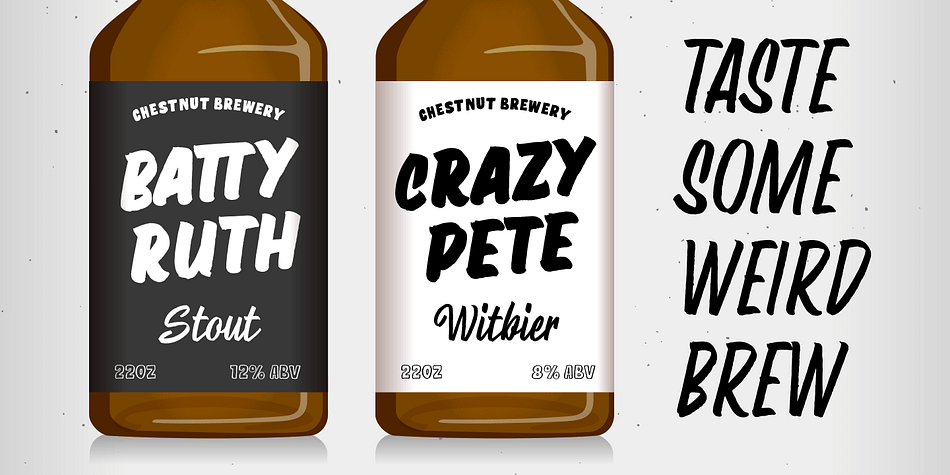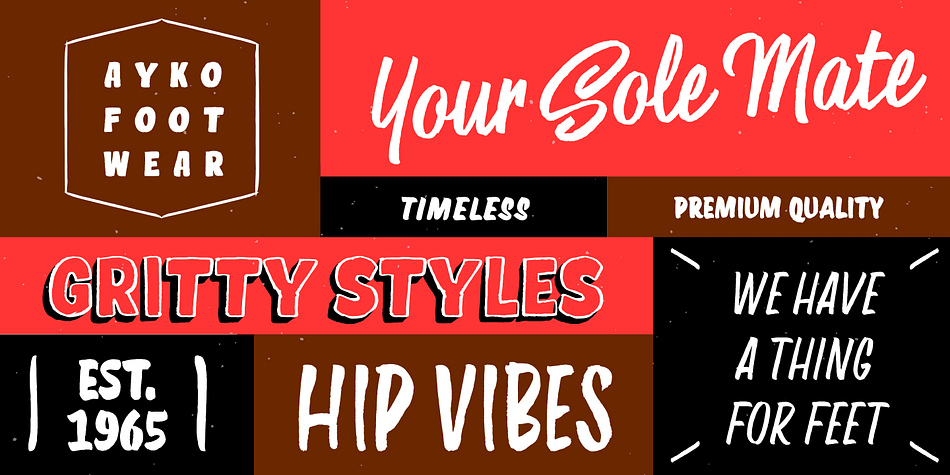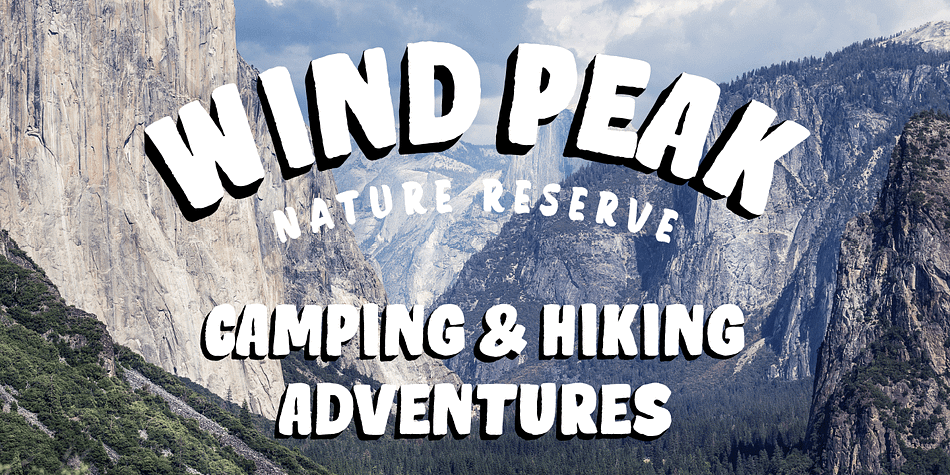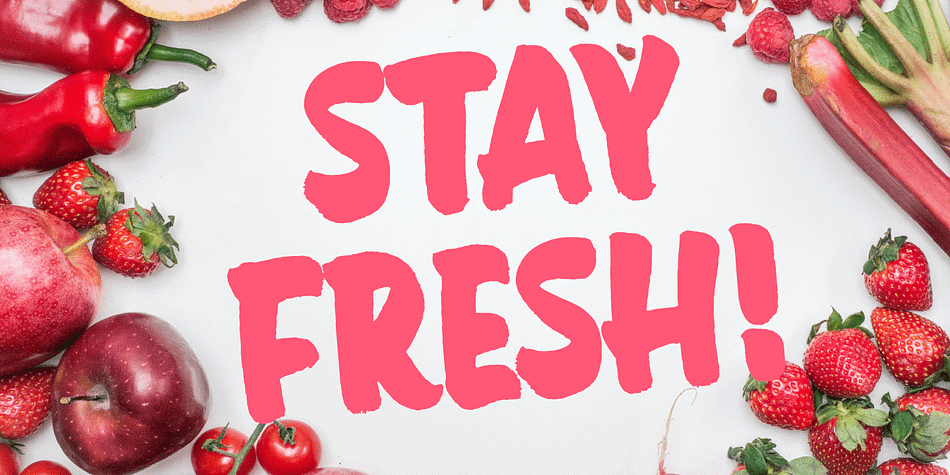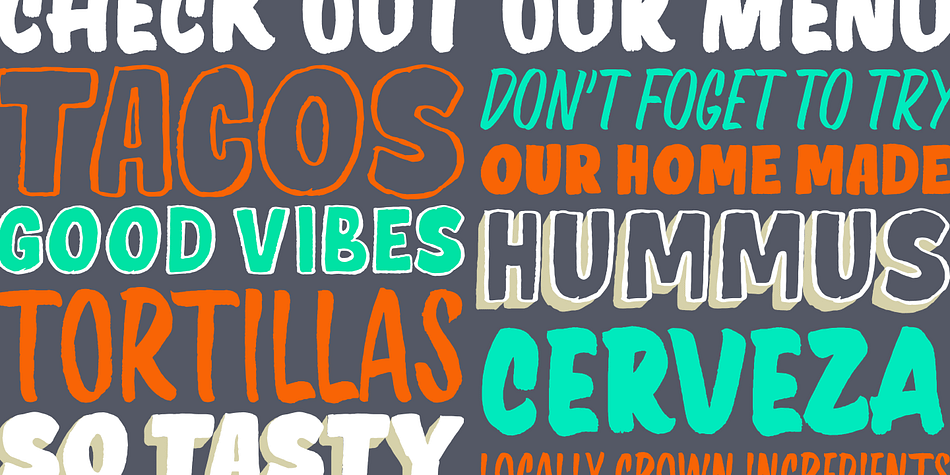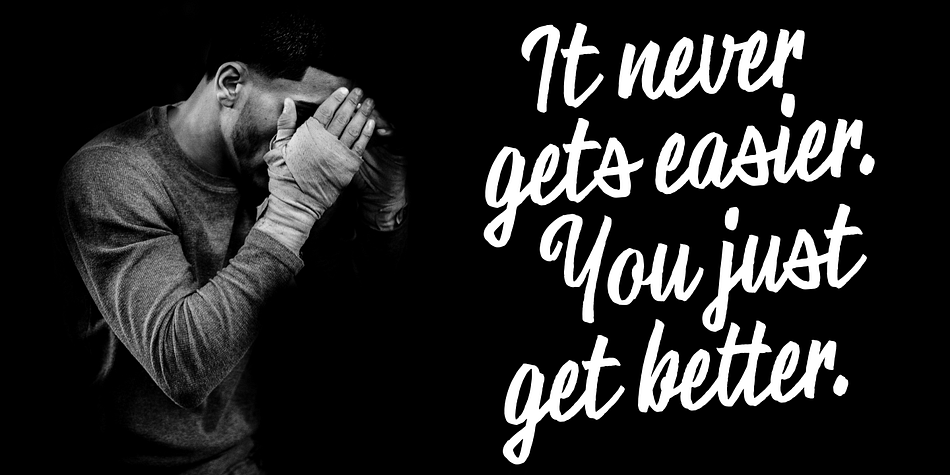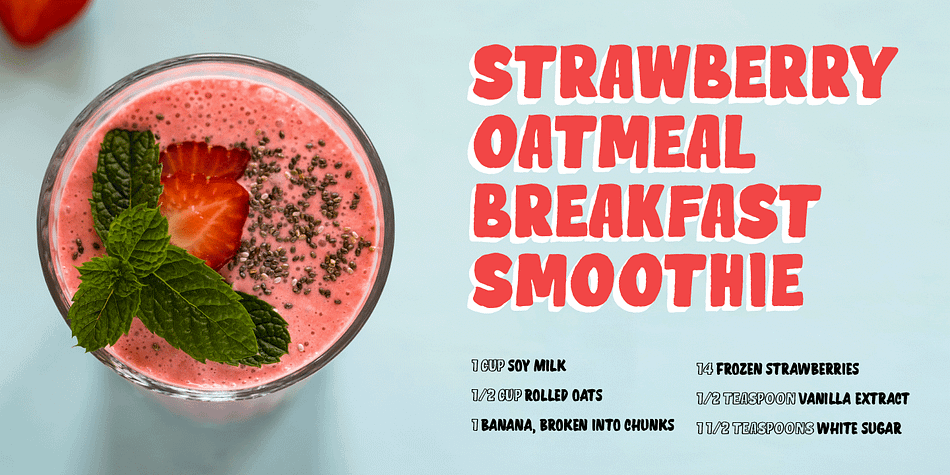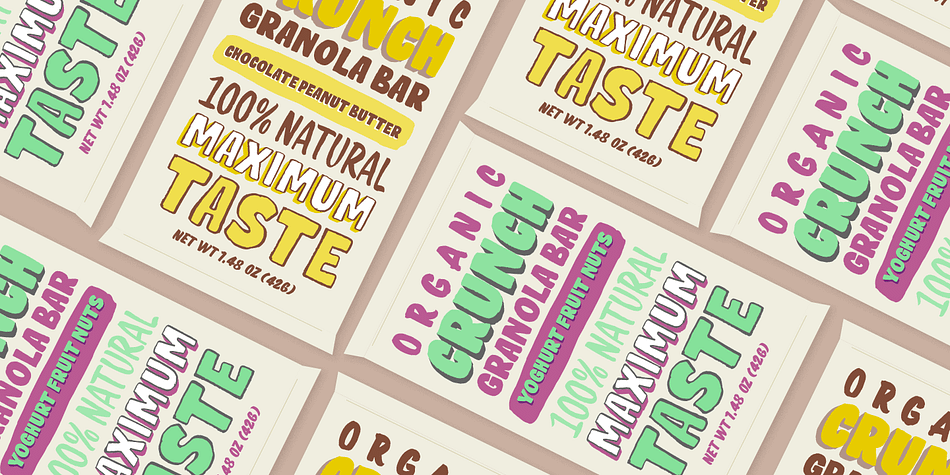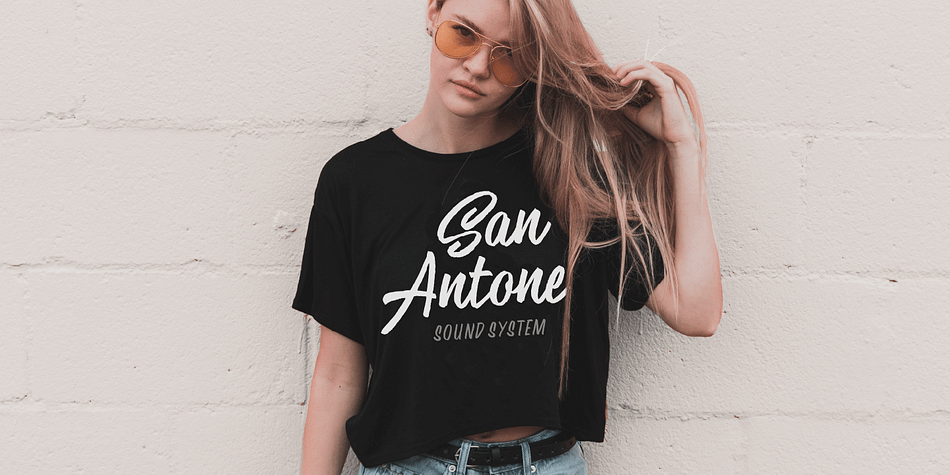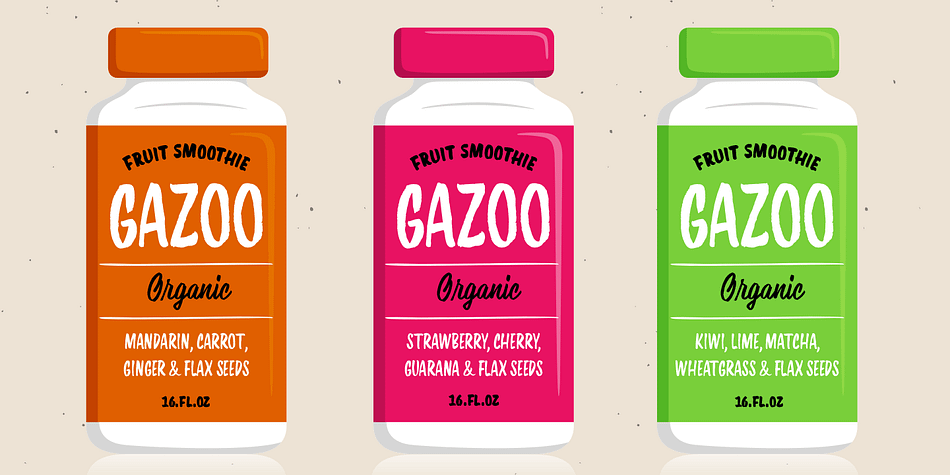
Designed by Teo Tuominen, Wolby is a brush script and hand display font family. This typeface has eight styles and was published by LetterMaker.
Wolby is a rough and organic hand drawn typefamily which draws inspiration from a variety of sources such as sign painting, hand lettering, comic books, cartoons, health food, sticks and stones to name a few. The letter shapes were all originally created by writing with a pointed brush. The use of one writing tool results in an aesthetical harmony between the very different styles making them all fit together.
The family consists of eight styles; upright and slanted caps in regular and bold, a layered block style in fill, outline and shadow styles and a lively script. Wolby is capapble of creating very different moods depending on which style you choose to highlight.
Because of it’s aesthetics, range of styles and extensive language support, Wolby is especially suitable for use in advertising, packaging design and gritty branding & fashion design.
When using the layered block styles you’ll get the best result by placing the shadow layer on the bottom, the fill in the middle and the outline layer on top. These can also be combined freely so you can use just shadow + fill, shadow + outline or fill + outline.
The script style is armed with a set of ligatures and swash capitals which allow you to supercharge your designs.